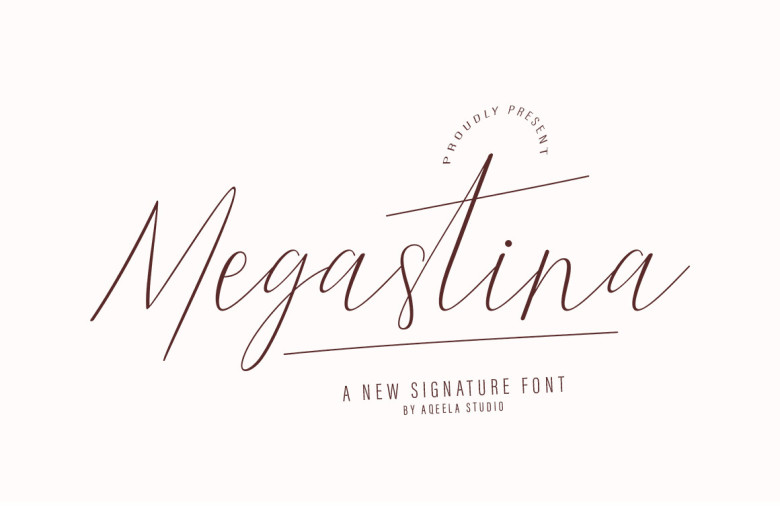
Megastina Font
Megastina offers an organic handwritten style that adds an original and fresh element to designs. Megastina makes branding easy by providing multiple options that let you craft masculine or feminine logos, plus its signature features several marks that give it a stiffer appearance while emphasizing its organic nature.
Megastina Signature Script Font